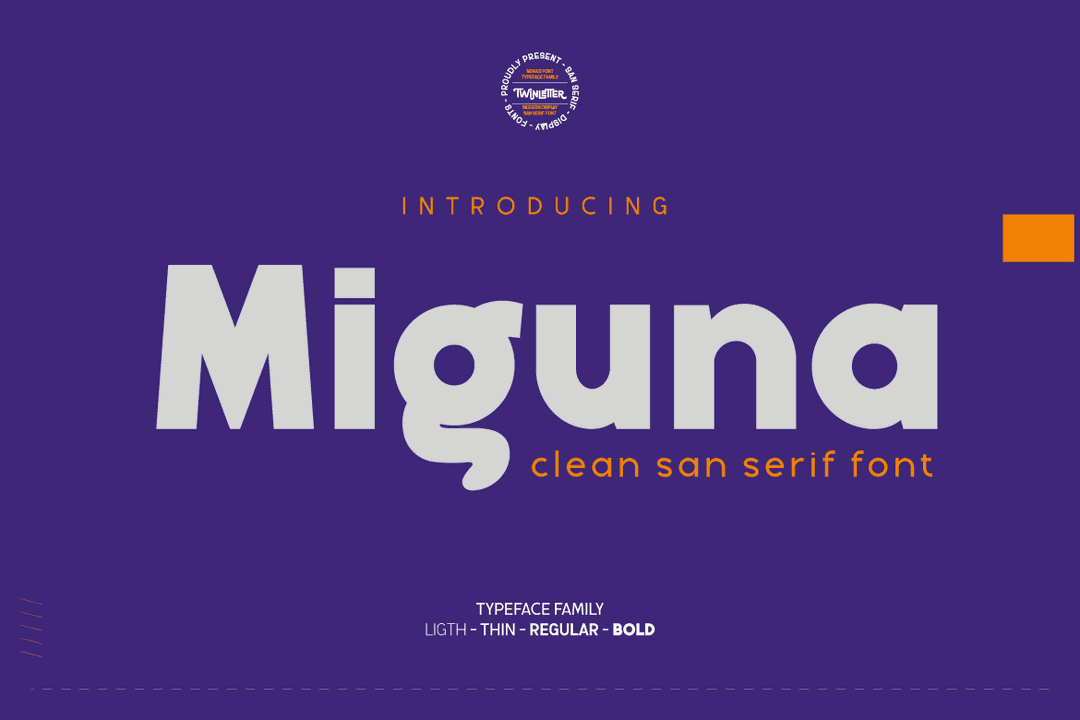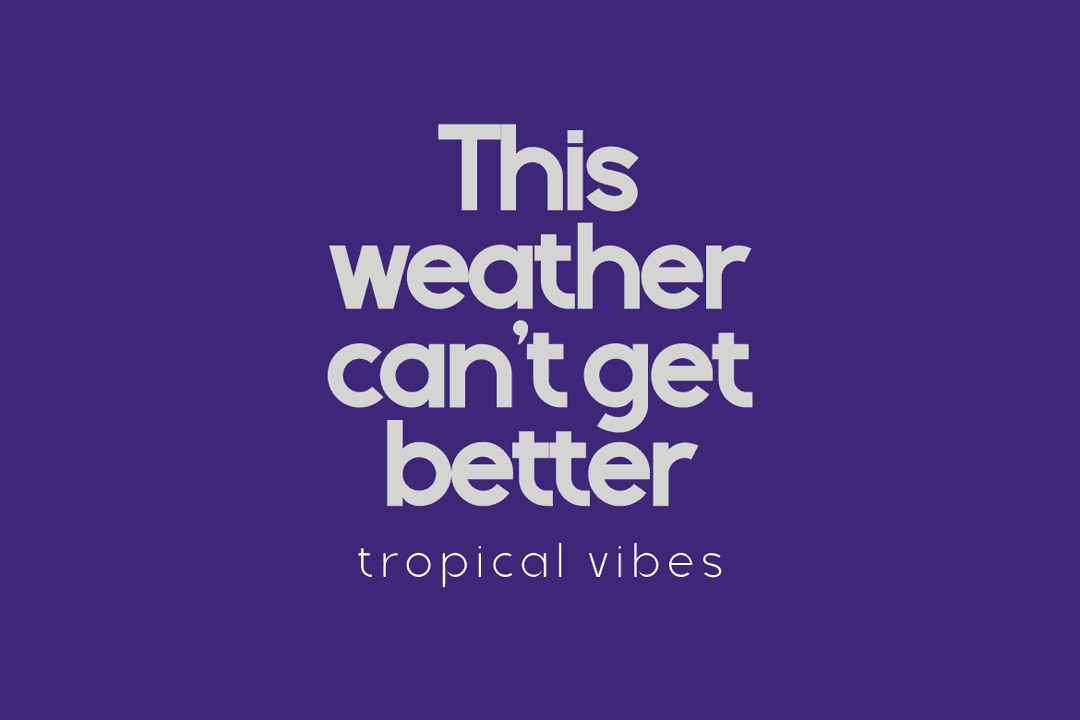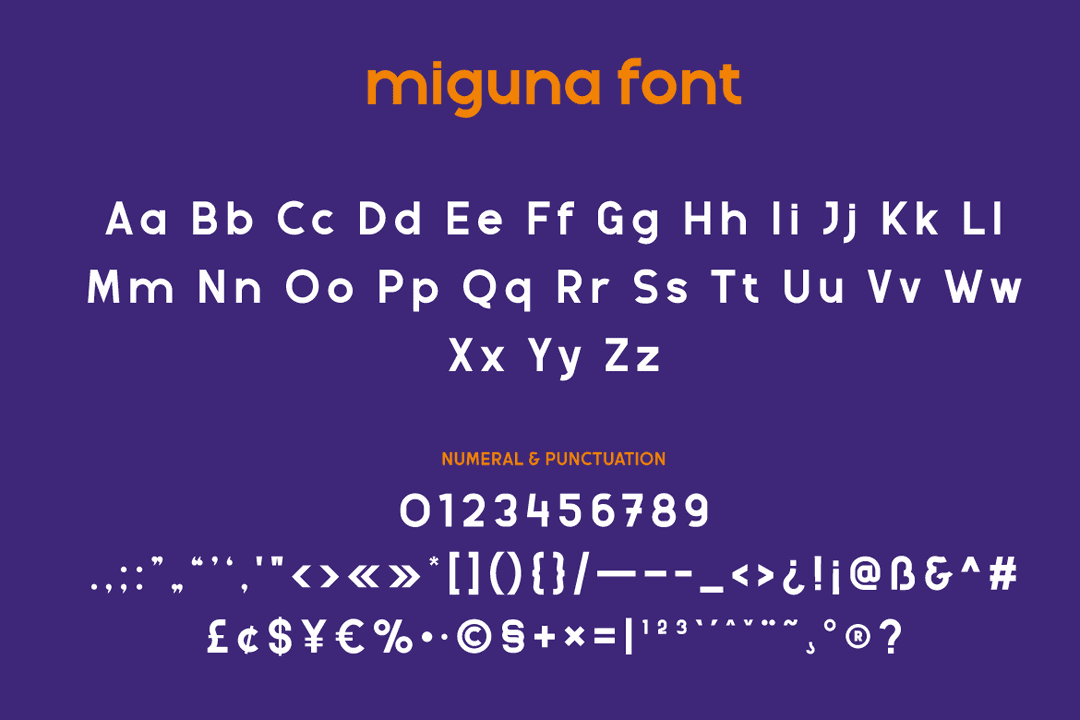
Miguna font is an elegant and versatile sans serif typeface that can be applied to a range of projects. Give Miguna font a try now to see how well it stands out!